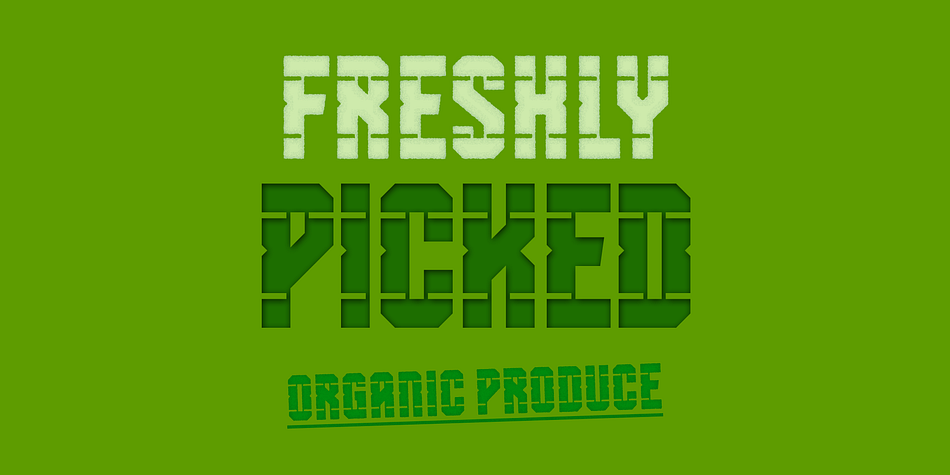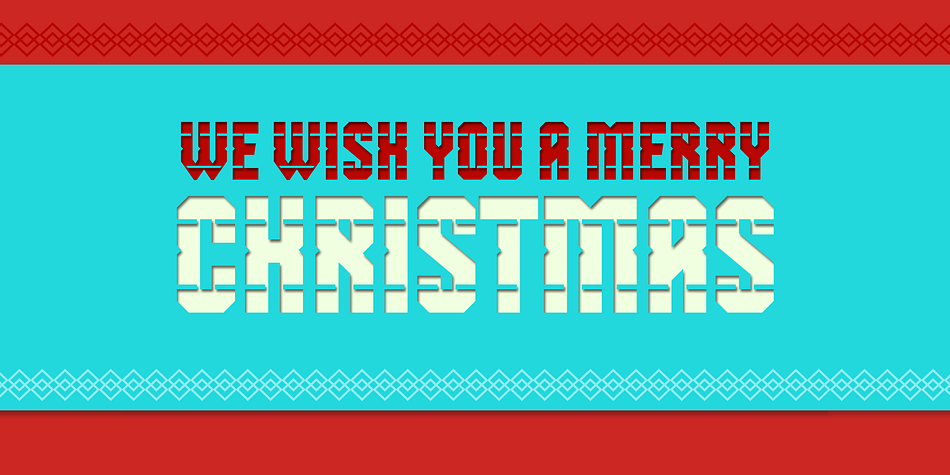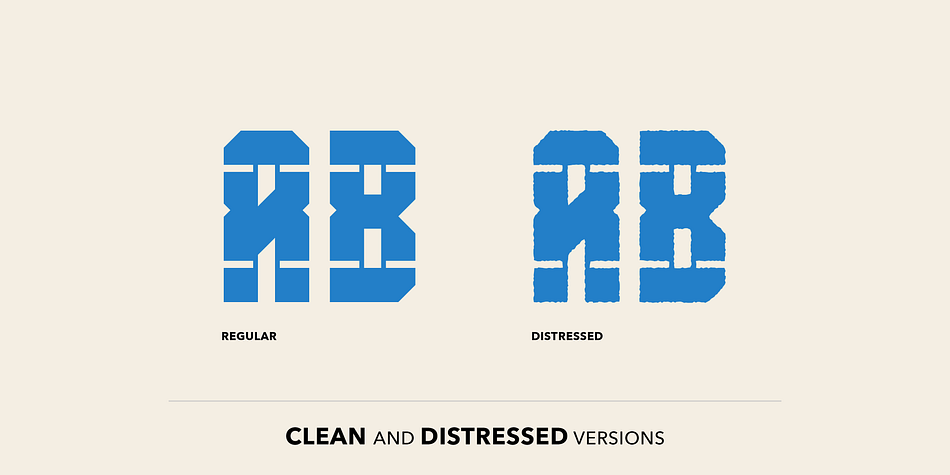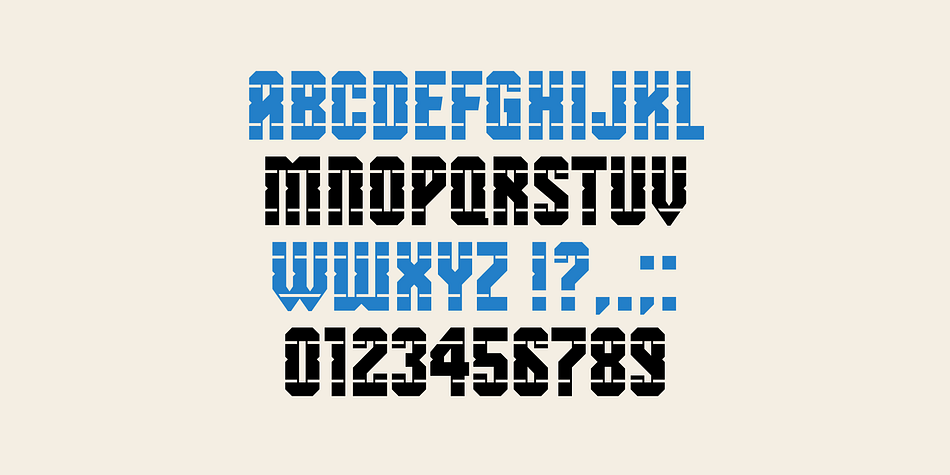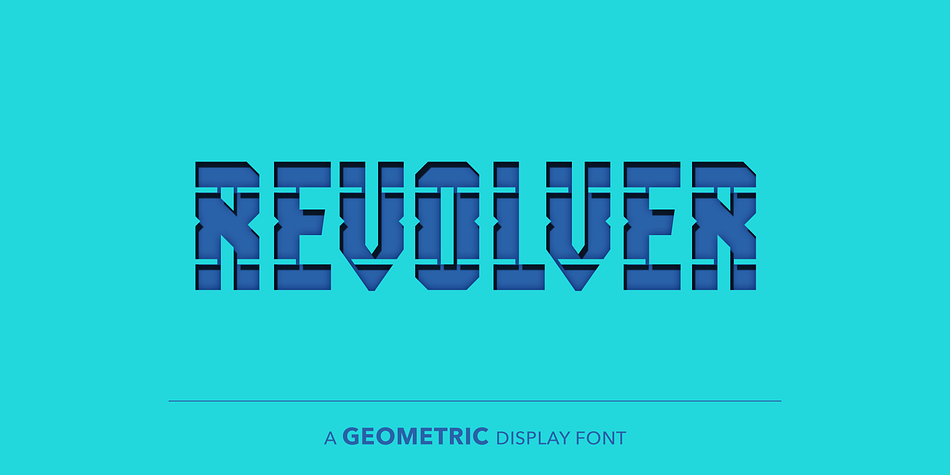
Designed by Craig Stainton, SB Revolver is a display font family. This typeface has two styles and was published by SelfBuild Type Foundry.
• Regular and Distressed versions.
SB Revolver is a poster sized display font inspired by papercrafts and wood type. It includes a distressed version that simulates print on a rough, absorbent paper.